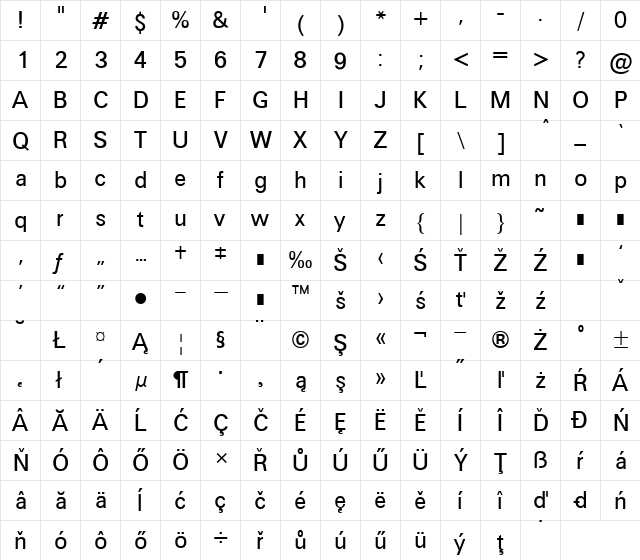
UnvEe Regular
Design Context for UnvEe Typeface
UnvEe offers clean, dependable letterforms without strong stylistic allegiance, making it a practical choice for designers who need flexibility.
Pro Tip: Pair UnvEe with a font of contrasting weight or personality to build a more expressive typographic hierarchy.